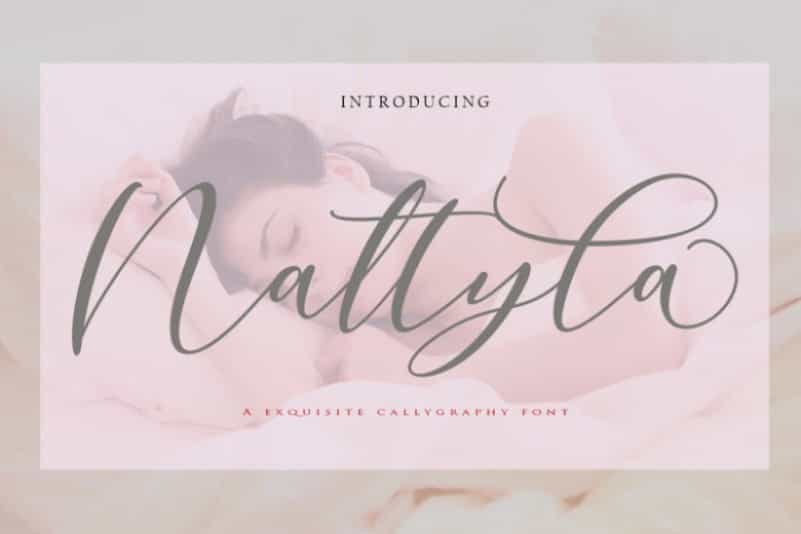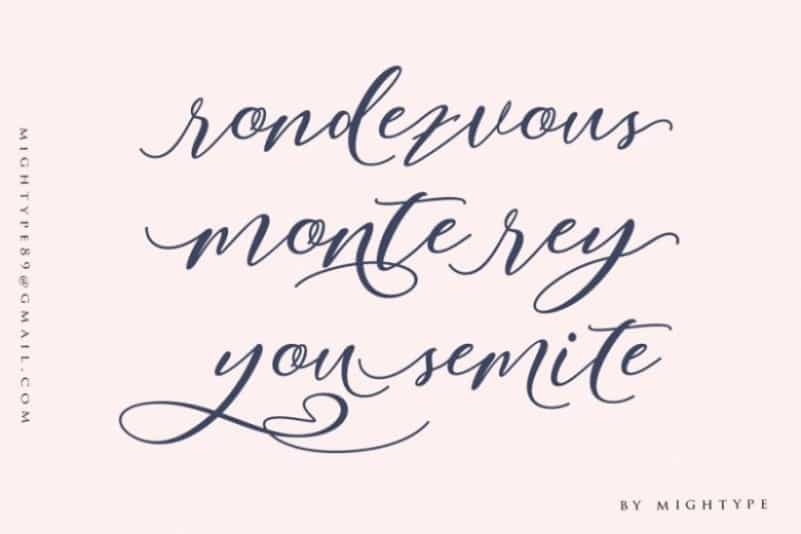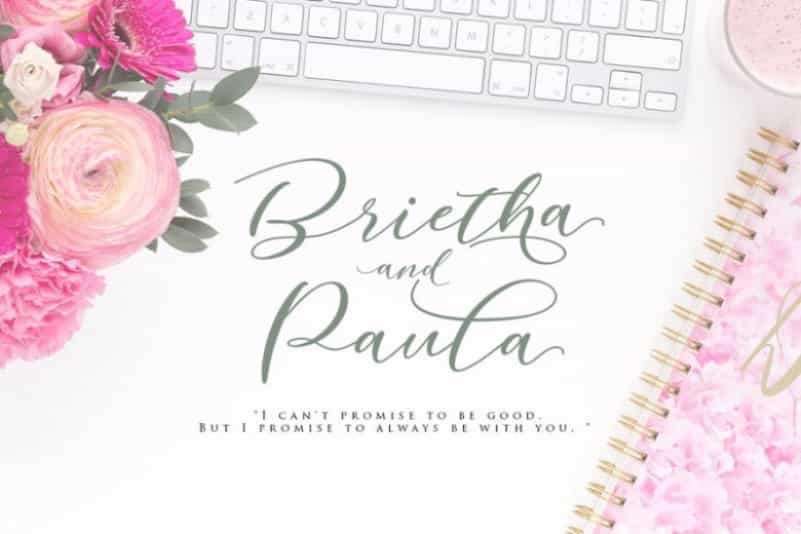
Introducing Nattyla Font! A new Modern Script Calligraphy Typeface which has its own special flow and elegant personality is now available. It is created and posted by mightype. The Nattyla Calligraphy Font is a contemporary calligraphy font which is in the current handwriting style.